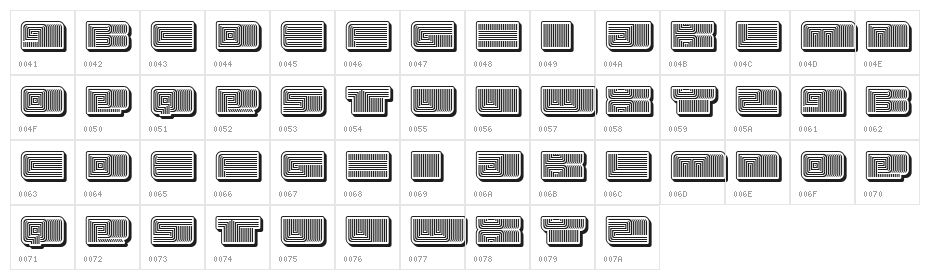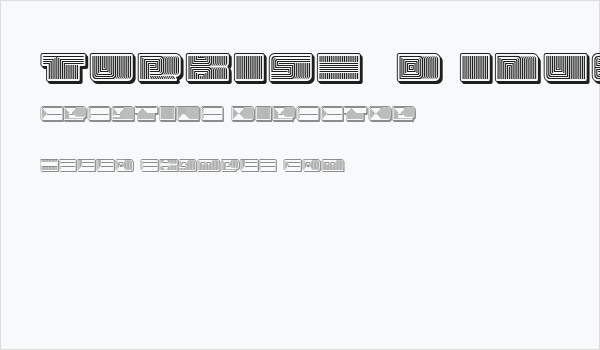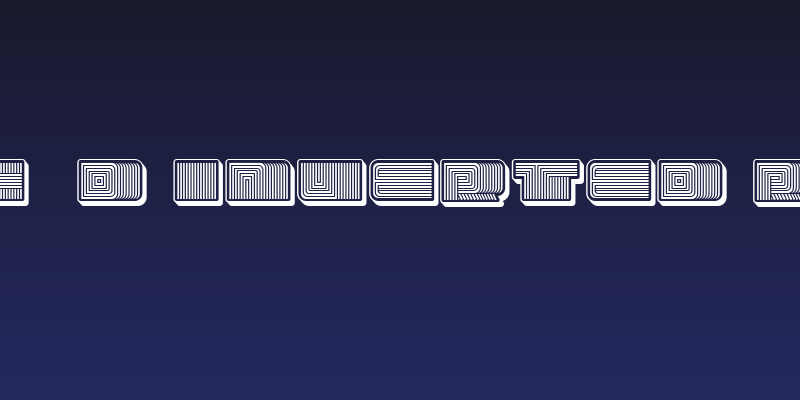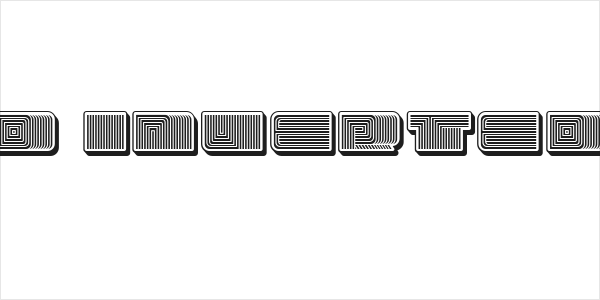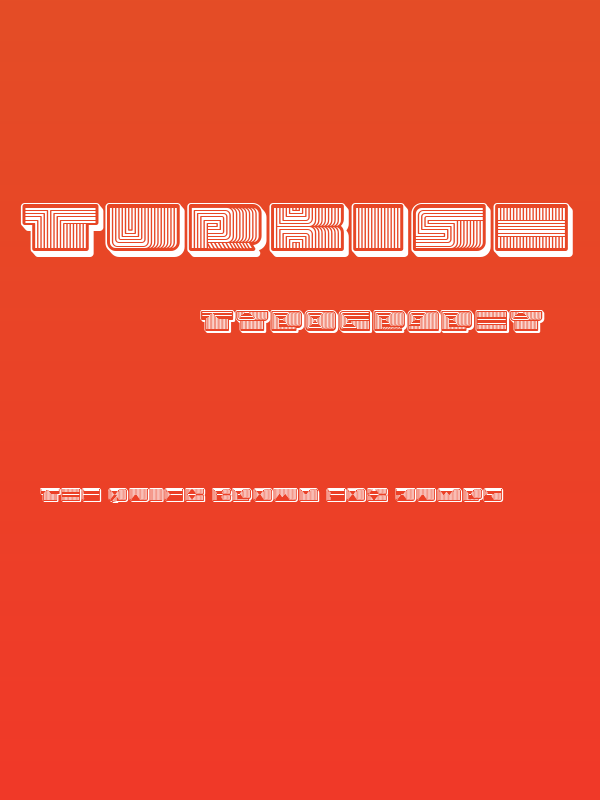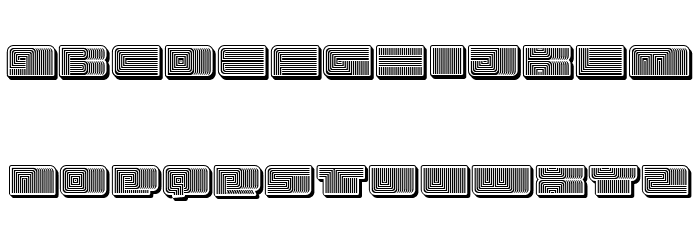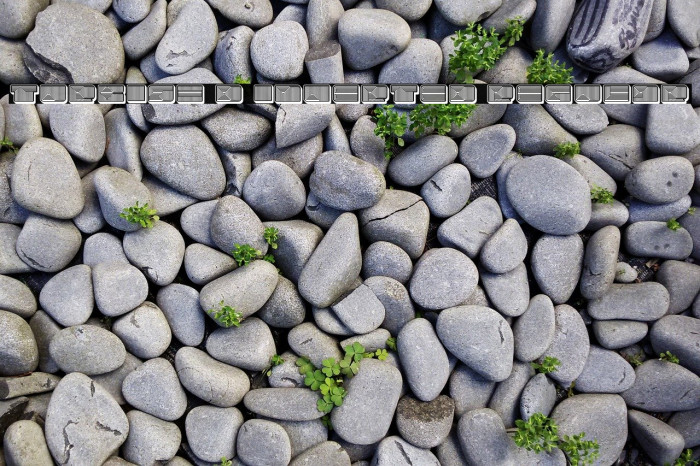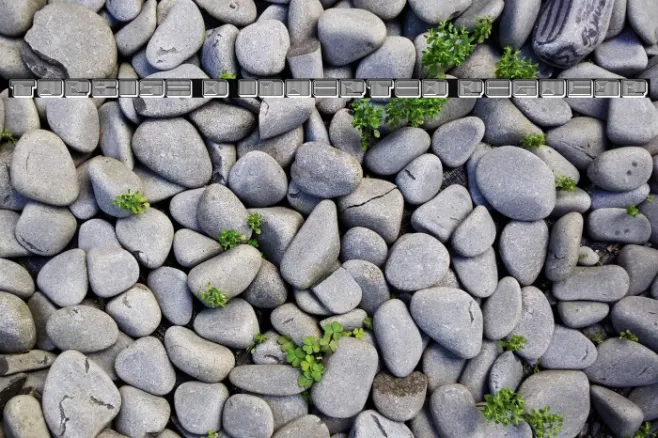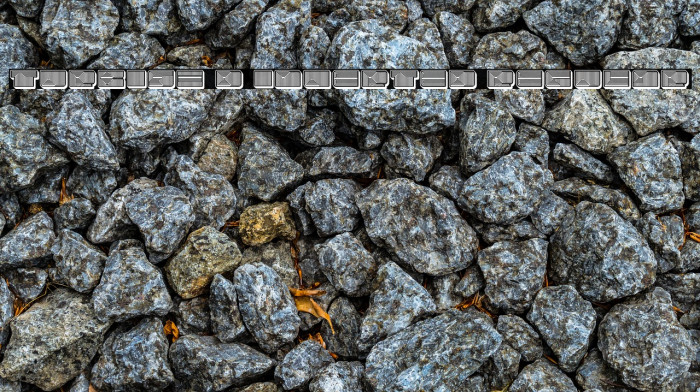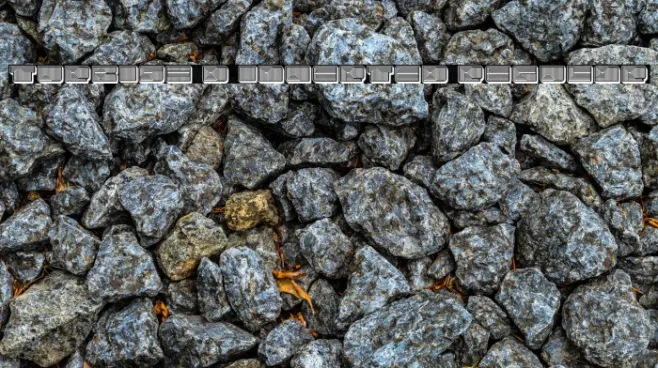
Turkish 3D Inverted Regular Font
Turkish 3D Inverted Regular Description
This font features a unique 3D inverted design with a bold, geometric structure. Each character is composed of multiple parallel lines that create a sense of depth and dimension, making it stand out with a striking visual impact. The letters are enclosed in a rectangular shape, enhancing the modern and futuristic aesthetic. The consistent line thickness across all characters contributes to a uniform appearance, while the intricate line patterns within each letter add a decorative touch. This font is ideal for projects that require a bold and eye-catching display, offering a distinctive style that captures attention.
| Proposed Projects | Ideal for posters, logos, video game graphics, and futuristic-themed designs. |